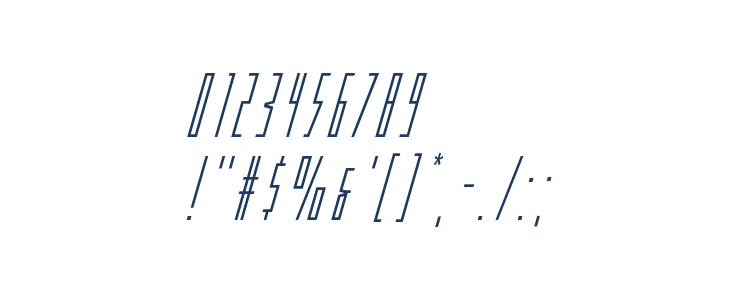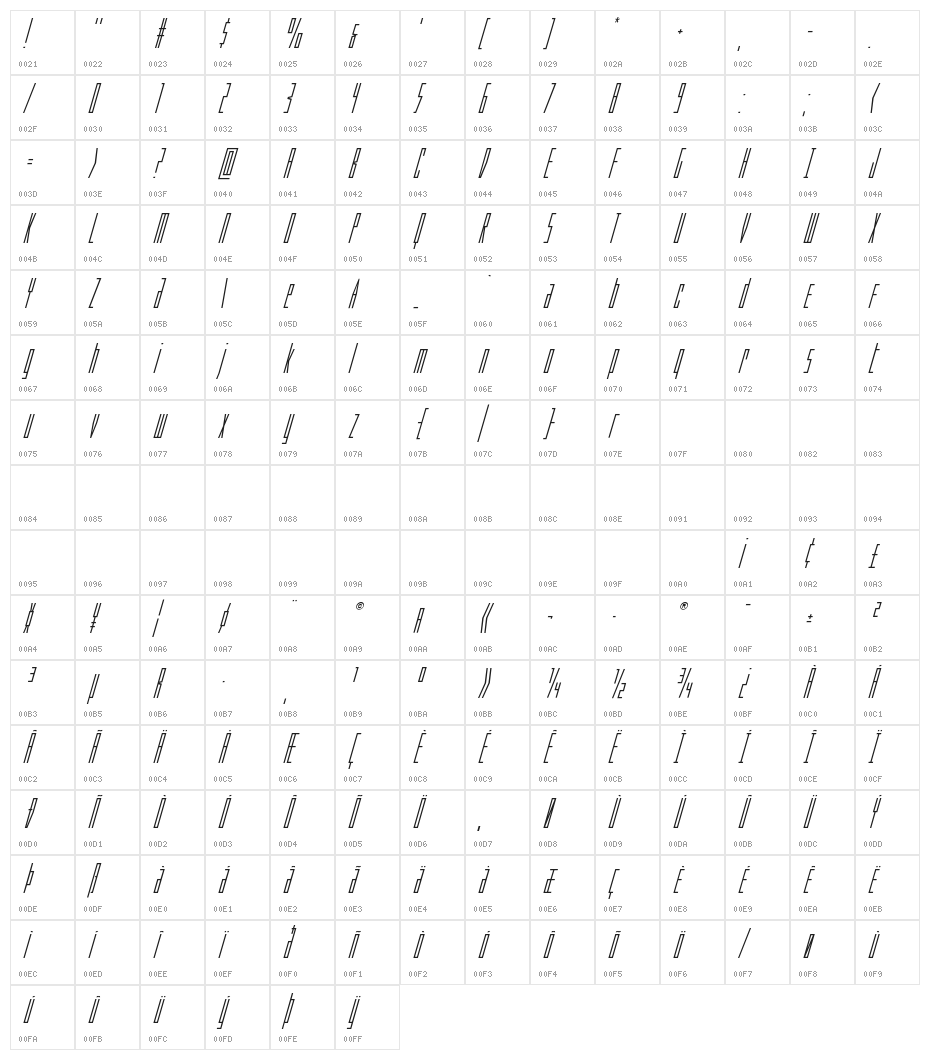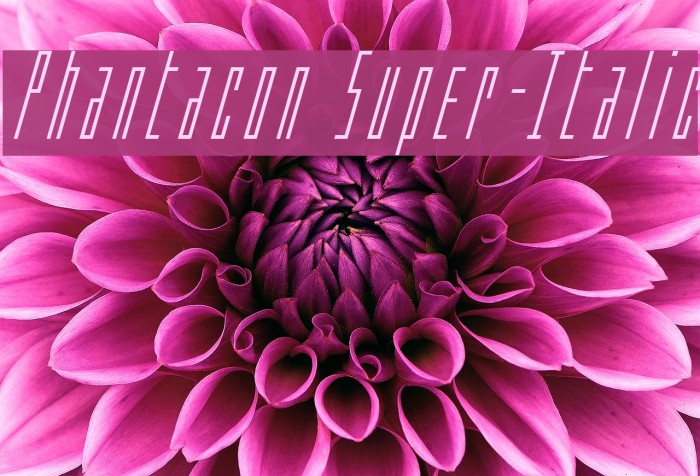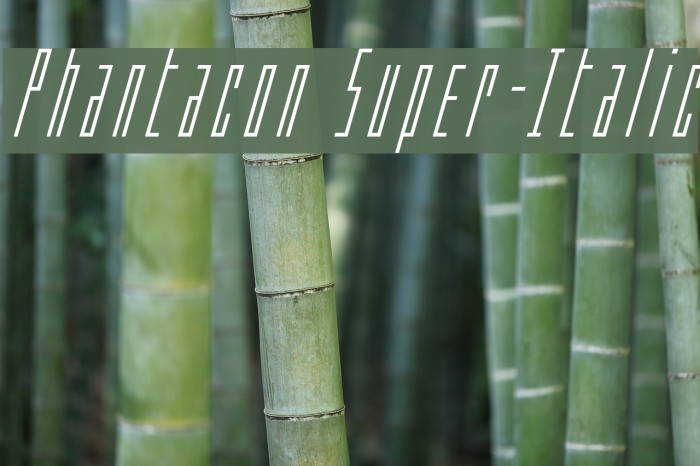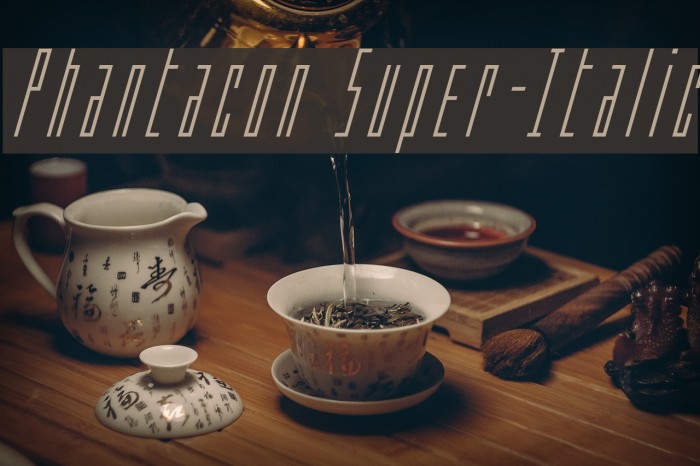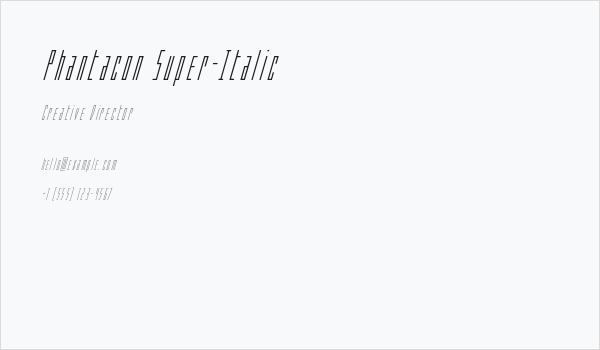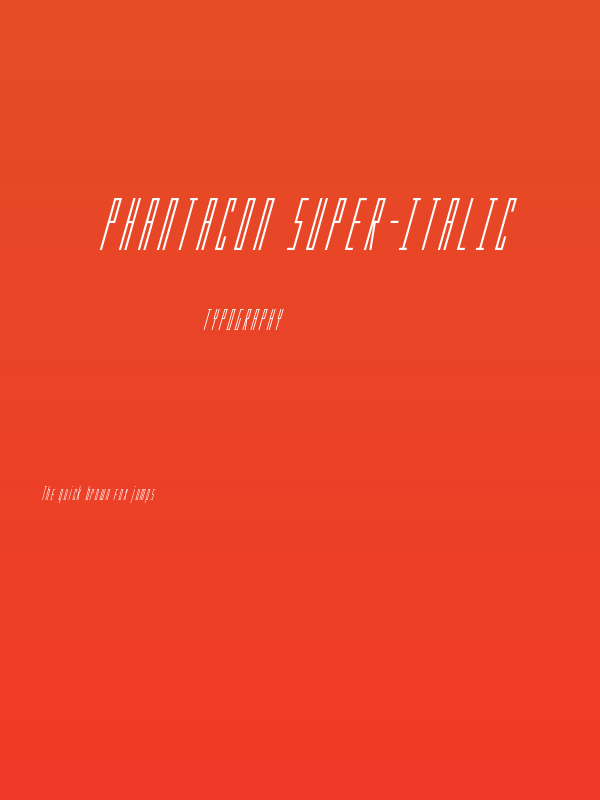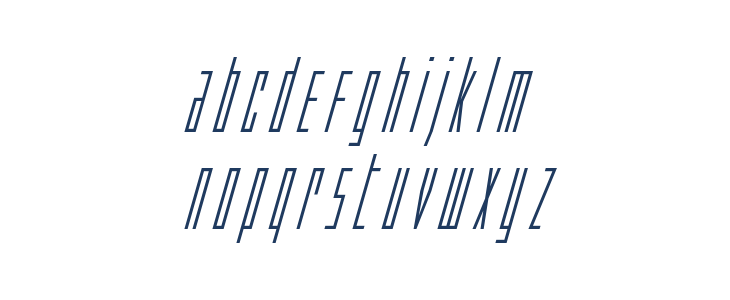
Phantacon Super-Italic Font
Phantacon Super-Italic Description
This font features a sleek, elongated design with a distinct italic slant, giving it a dynamic and modern appearance. The characters are narrow and tall, with sharp angles and clean lines that contribute to its futuristic aesthetic. The uppercase and lowercase letters maintain a consistent style, while the numerals and special characters are designed to complement the overall look. The font's thin strokes and high contrast between thick and thin lines add to its elegance and sophistication, making it suitable for projects that require a contemporary and stylish touch.
Proposed ProjectsIdeal for modern branding, tech-related designs, futuristic posters, and stylish editorial layouts.